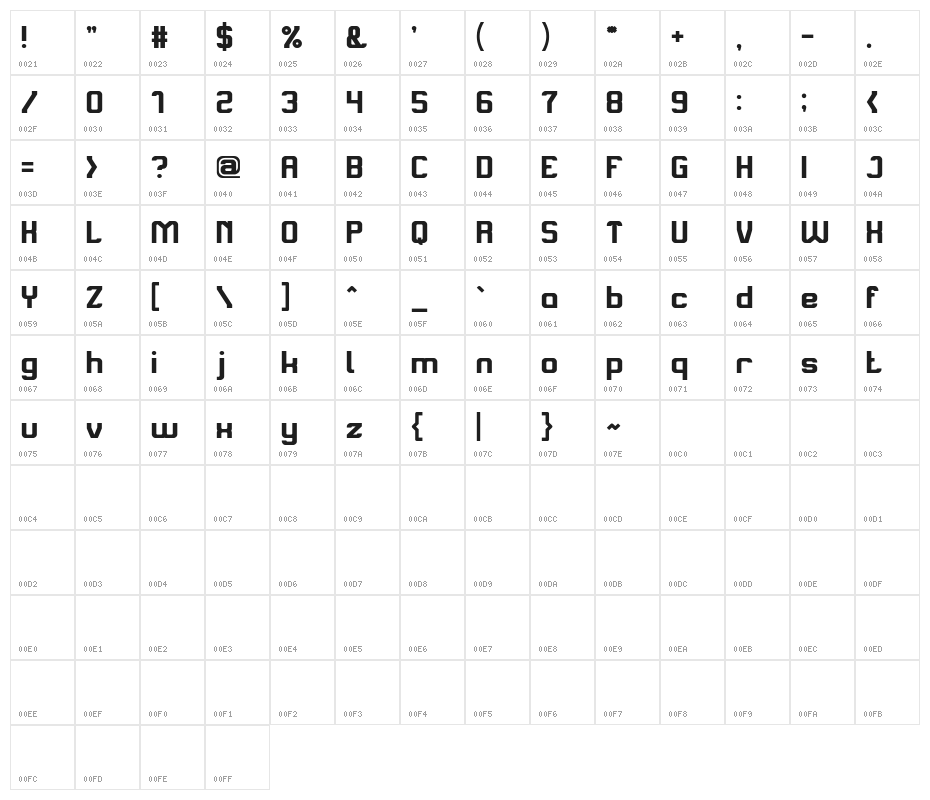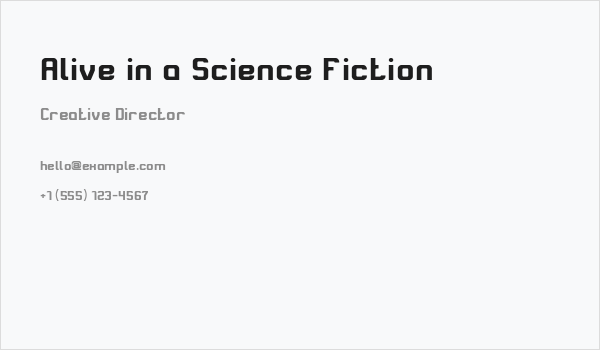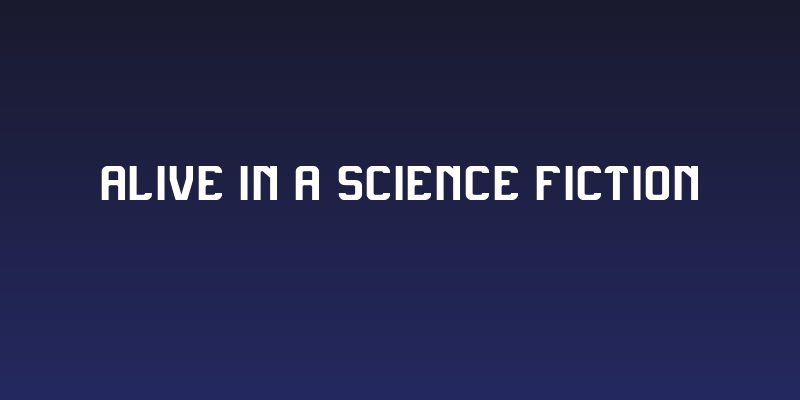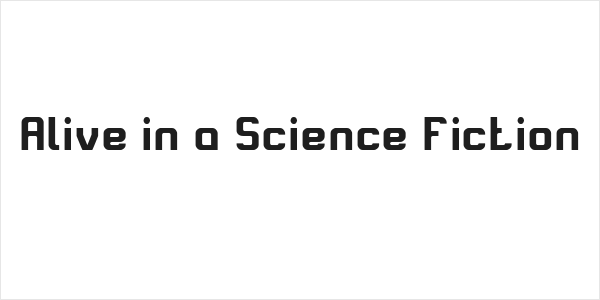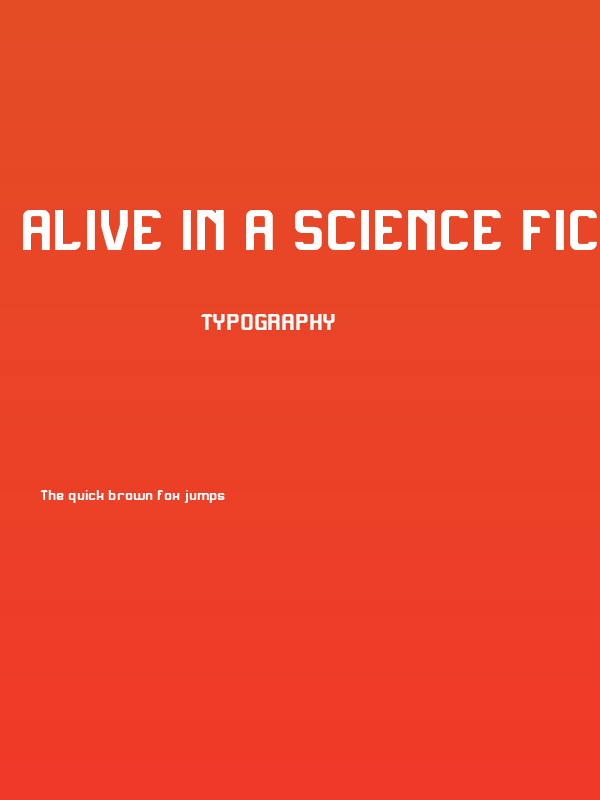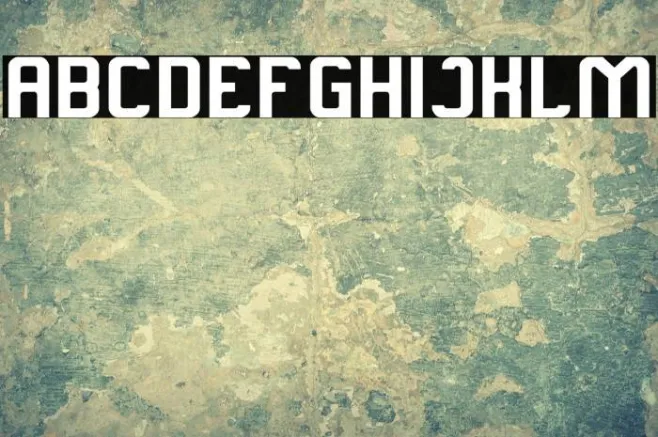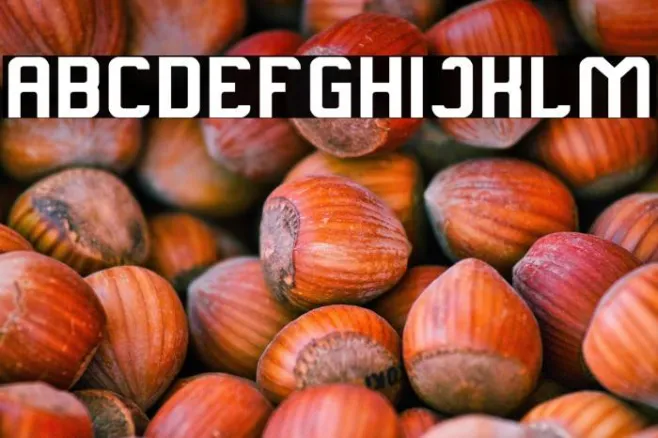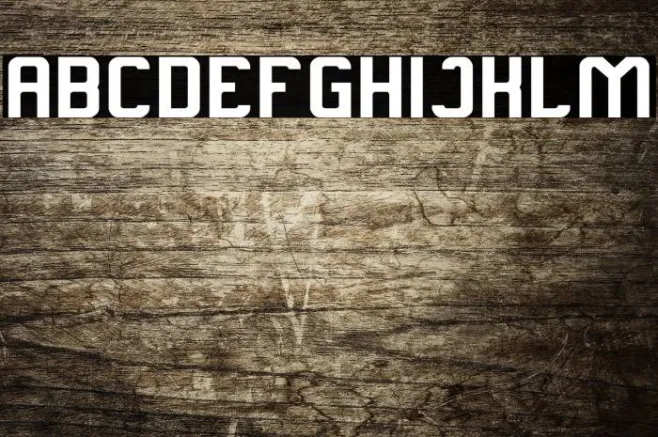
Alive in a Science Fiction Font
Alive in a Science Fiction Description
This font features a futuristic and geometric design, characterized by its bold and angular letterforms. The uppercase and lowercase letters maintain a consistent structure, with sharp edges and a uniform stroke width that conveys a sense of modernity and technological advancement. The numerals are equally bold, with a distinctive style that complements the overall aesthetic. Special characters are designed with the same attention to detail, ensuring a cohesive look across all glyphs. The font's unique style makes it ideal for projects that require a contemporary and cutting-edge appearance.
| Proposed Projects | Ideal for science fiction book covers, technology branding, video game interfaces, and futuristic posters. |